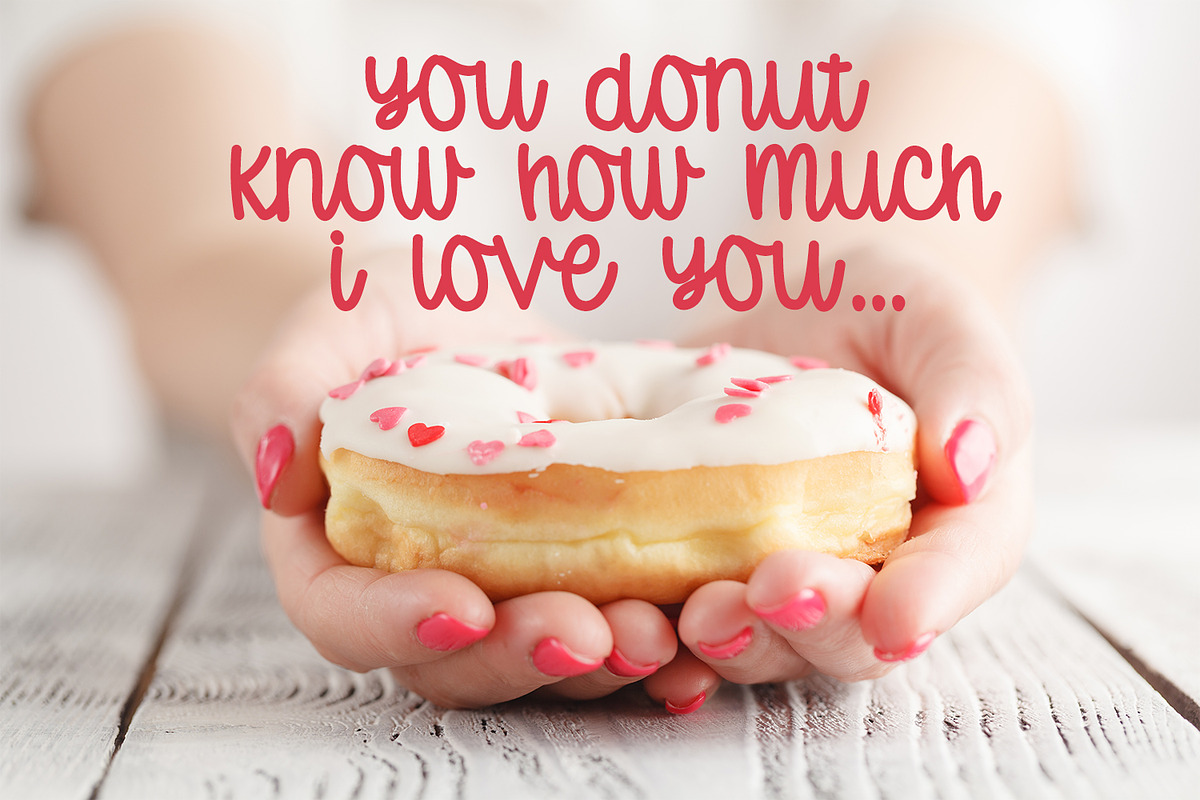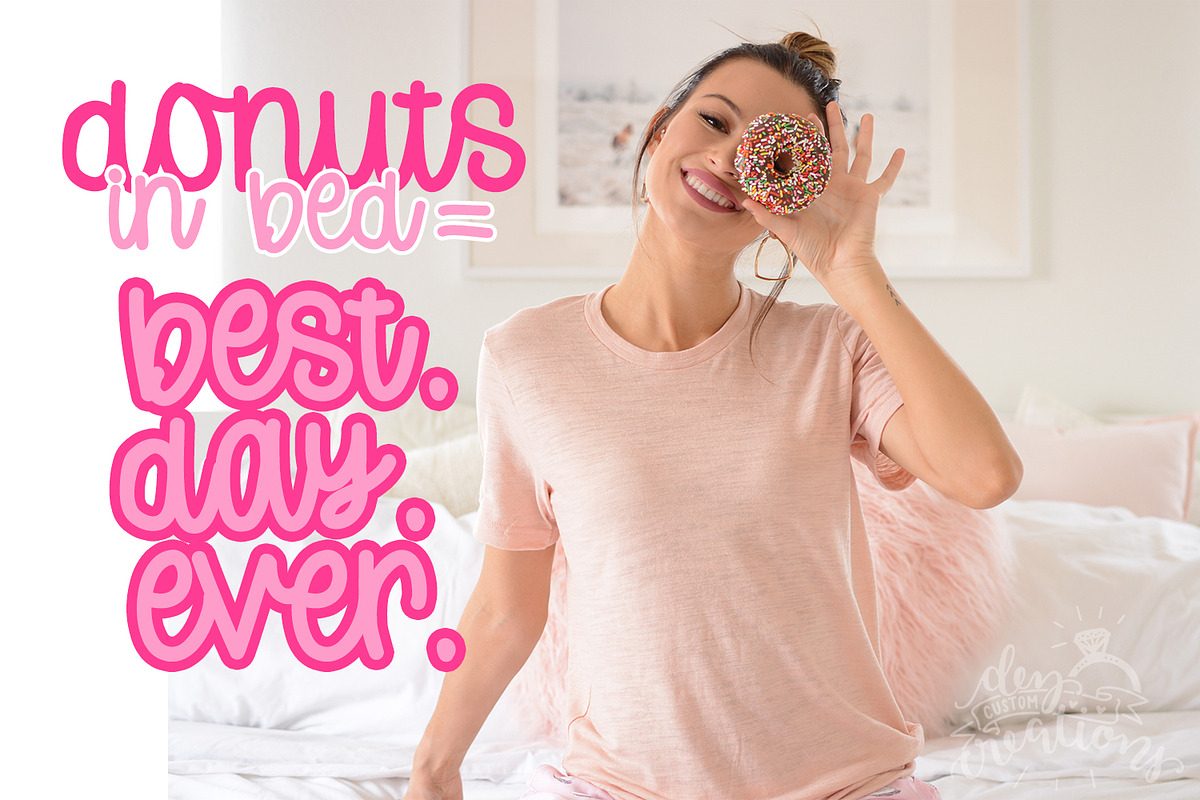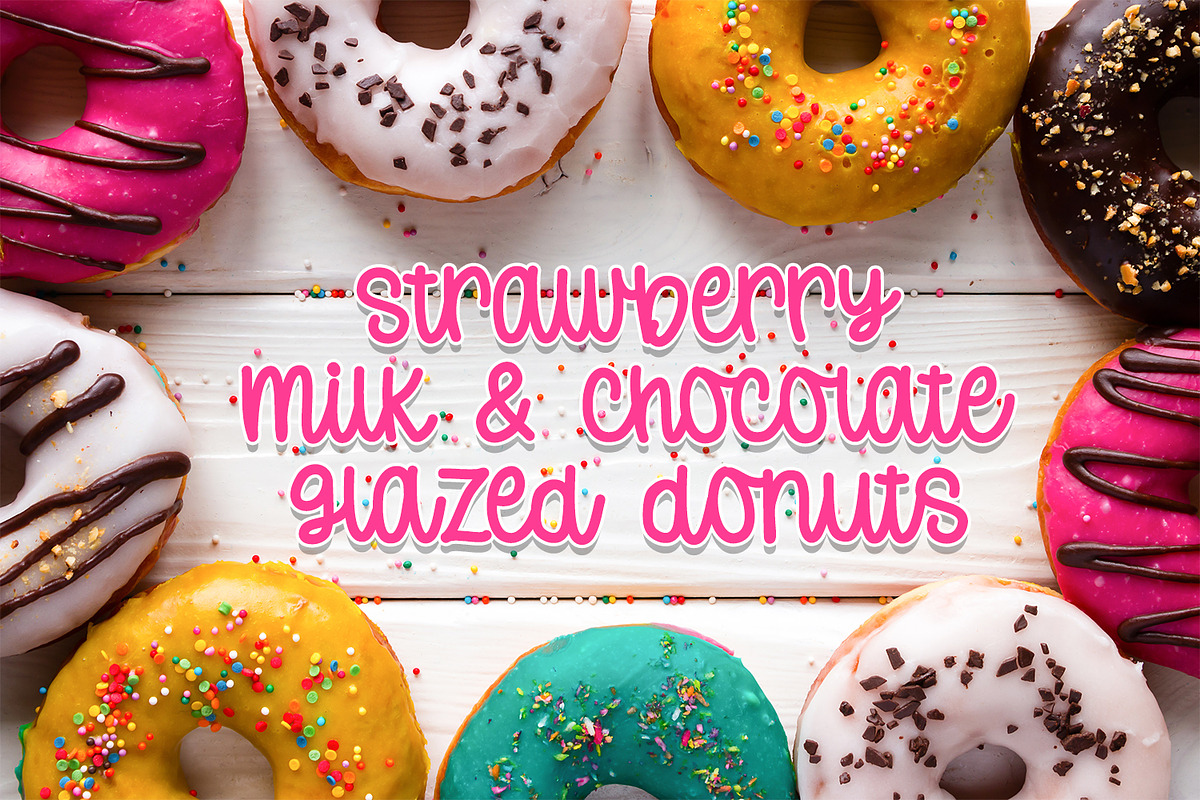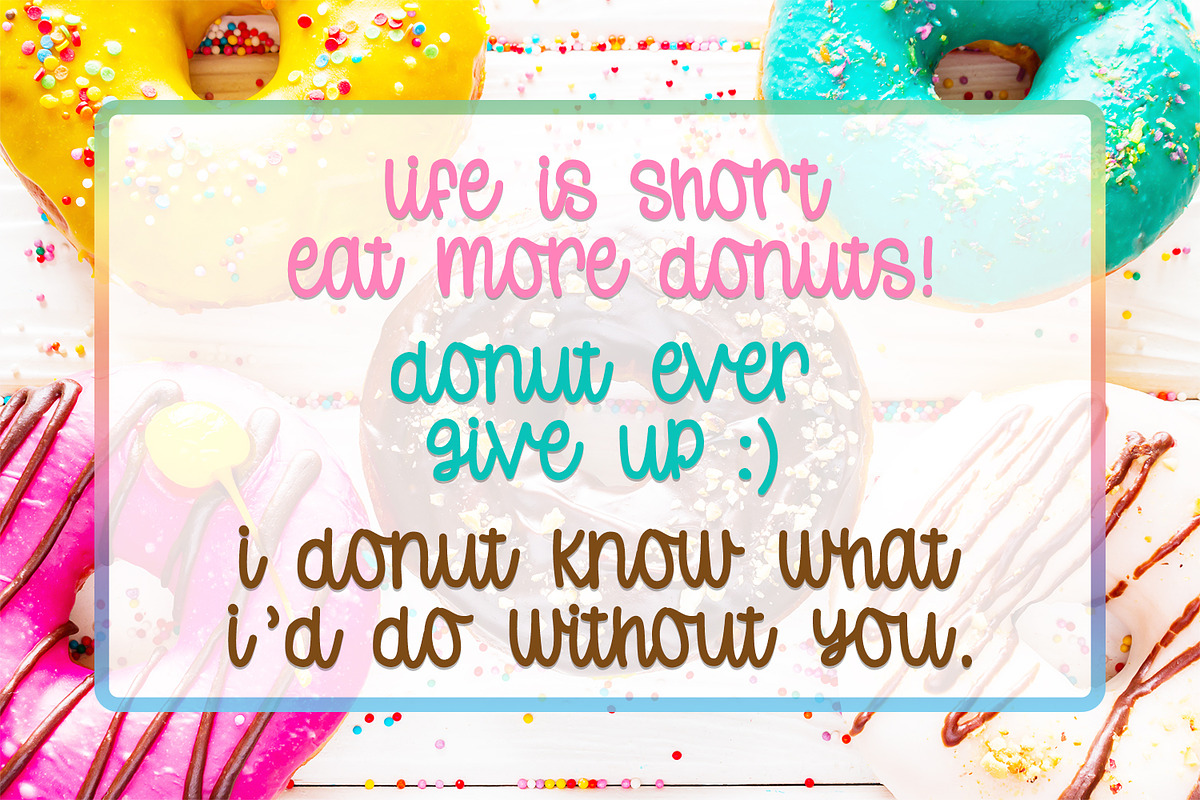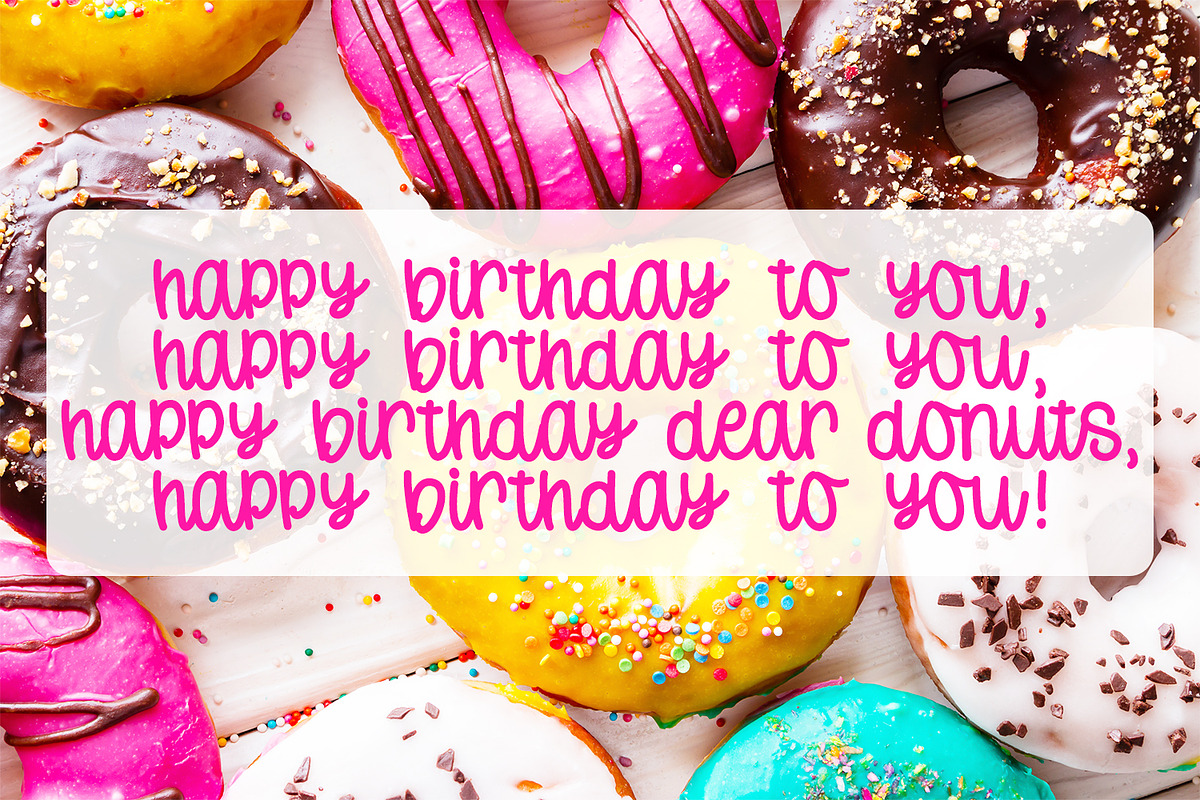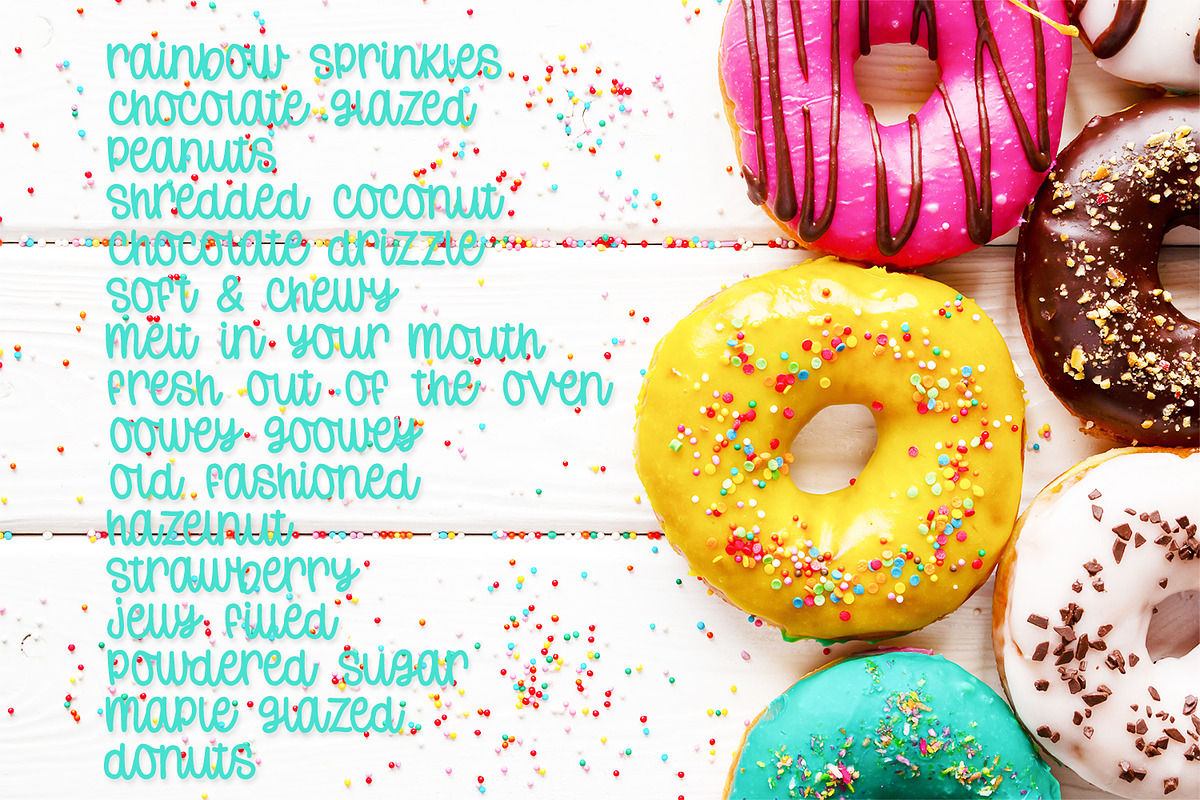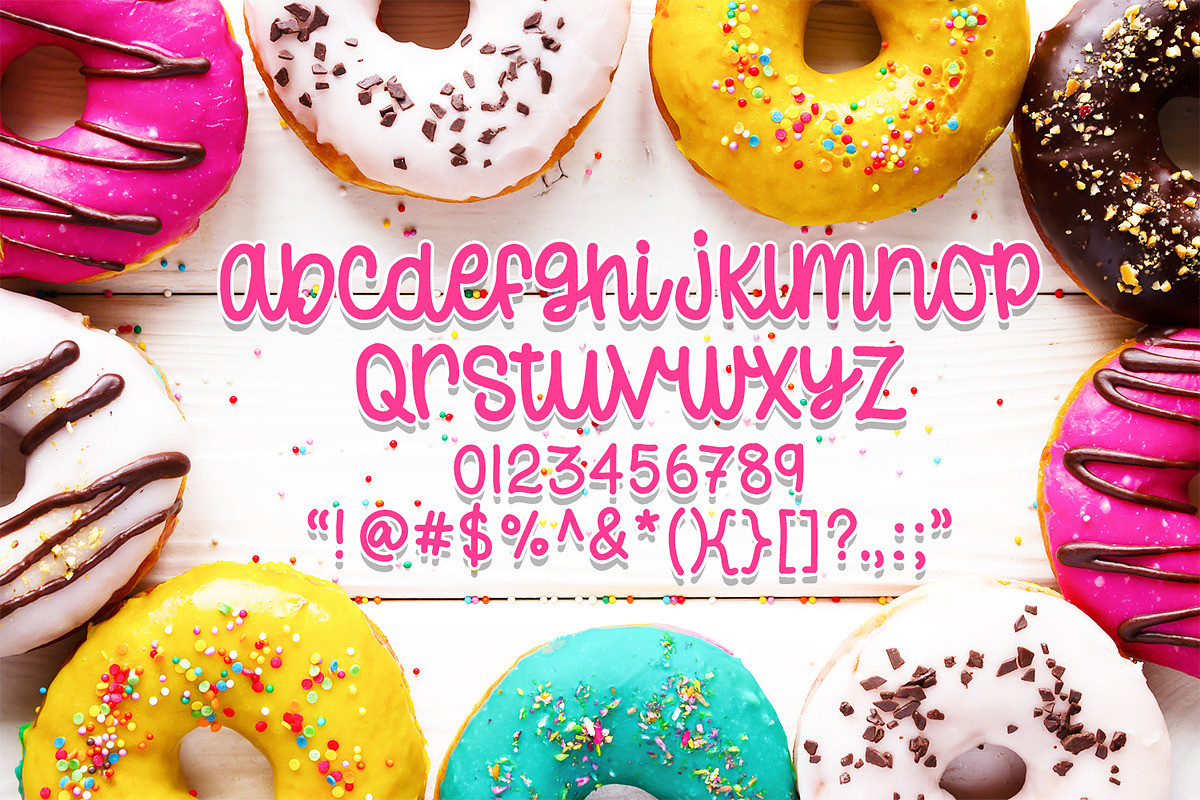
Donut Worry - A Hand-lettered Font
'Donut Worry' is a super fun font that is hand lettered by me. The characteristics of this font give off a unique hand lettered feel that will make your work enticing to view. :D The Single Level of this font (all on the same plane) makes it perfect for crafting and looks awesome on T-shirts, mugs, cards and so much more! Comes with Uppercase, Numeral, Punctuation and Accents.